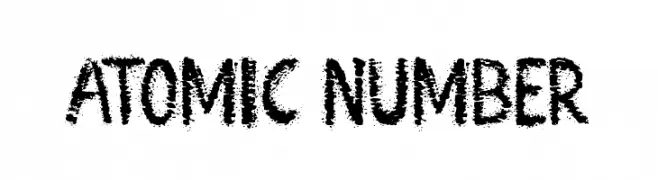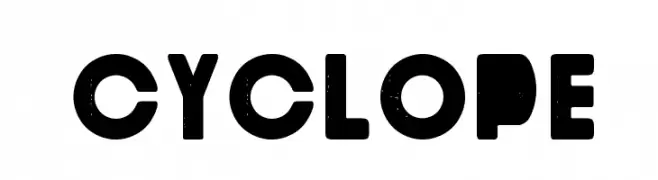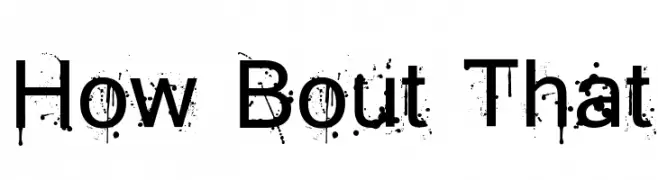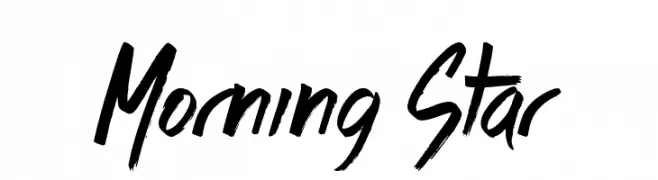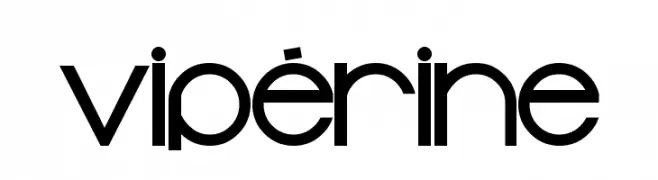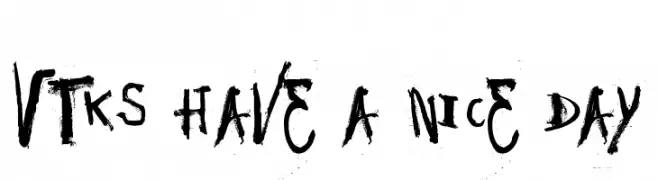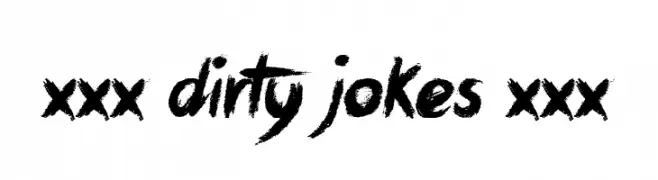
A bold, expressive brush-style font with a textured, hand-painted look.
A bold, playful, hand-drawn font with irregular, artistic characteristics.
A bold, distressed font with a textured, spray-painted appearance.
A bold, expressive font with a hand-painted, grungy style.
A bold, geometric font with a vintage, distressed texture.
A bold, brushstroke-style font with dynamic, hand-painted characteristics.
A modern, geometric font with clean lines and circular elements.
A bold, hand-painted style font with dynamic, irregular strokes.
A bold, distressed font with a grunge, spray-painted look.